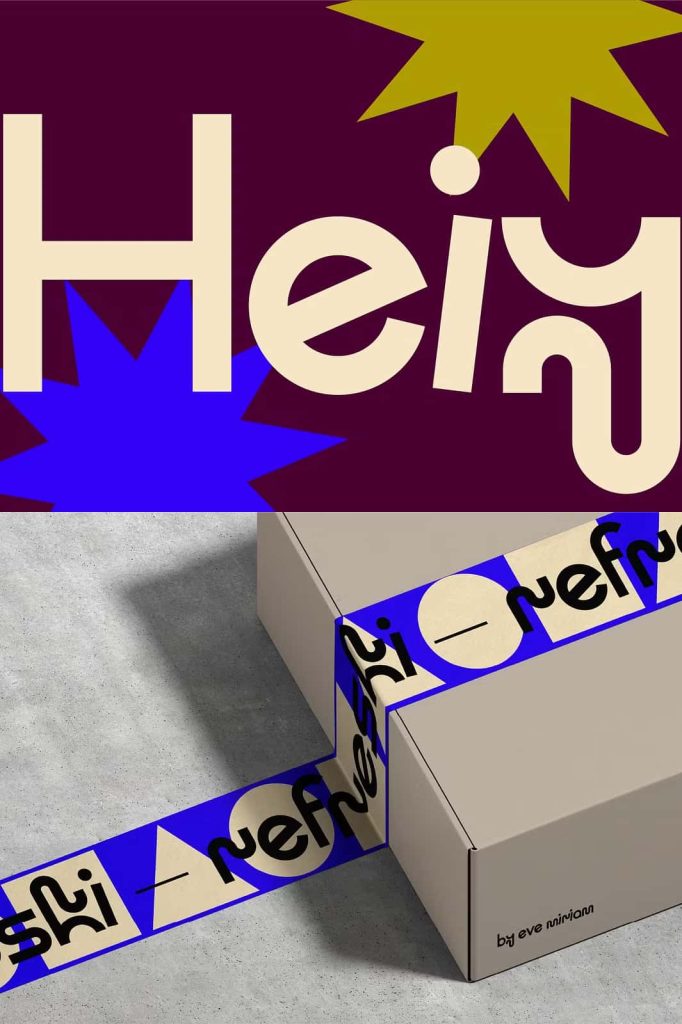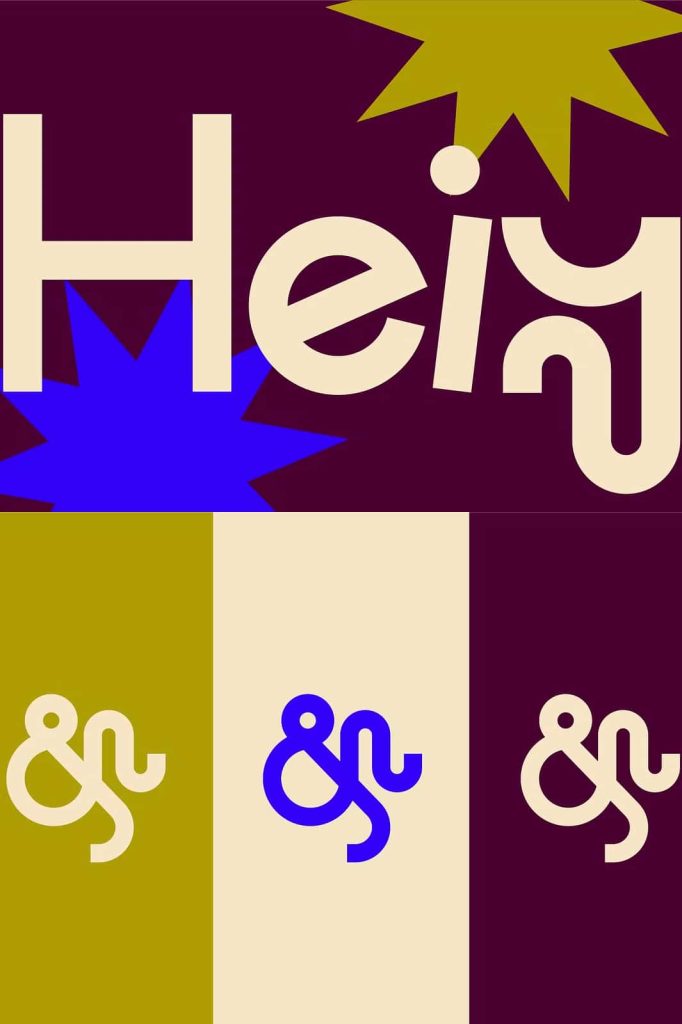
Heiy Fun and Characterful Display Typeface
Heiy introduces a lively and expressive display typeface that brings bold personality and creative energy into every design. This font captures attention instantly with its playful forms and distinctive character, making it an ideal choice for projects that aim to stand out. Designed with creativity in mind, Heiy transforms simple text into a strong visual statement that communicates confidence, fun, and originality.
The typeface embraces a unique design approach that prioritizes individuality. Each letter carries its own personality while still maintaining harmony across the entire set. This balance allows designers to create compositions that feel dynamic, engaging, and visually exciting without losing clarity or readability.
Bold Personality That Stands Out
Heiy delivers a strong visual presence that immediately captures attention. Its bold shapes and expressive style make it perfect for headlines, titles, and any text that needs to make an impact. The font actively enhances visual hierarchy by drawing the viewer’s eye to key messages.
Designers can use Heiy to create designs that feel energetic and full of life. Its characterful forms break away from conventional typography, offering a fresh and modern alternative for creative projects. This makes it especially valuable for designs that aim to communicate excitement and originality.
Designed for Maximum Visual Impact
Heiy allows designers to push creative boundaries by offering a typeface that feels both playful and confident. Its strong presence ensures that text never fades into the background, making it a powerful tool for capturing attention in both print and digital environments.
Perfect for Creative Branding
Heiy empowers brands to express their identity in a bold and memorable way. Its playful and distinctive style helps businesses stand out in competitive markets, especially those that want to communicate a fun and approachable personality. The font works well for logos, brand marks, and promotional materials that require a strong visual identity.
Designers can actively use Heiy to build branding systems that feel cohesive and engaging. Its unique character ensures that every element of the design contributes to a recognizable and impactful brand presence.
Create Memorable Brand Experiences
With Heiy, branding becomes more than just visual identity—it becomes an experience. The font encourages creative exploration, allowing designers to craft visuals that resonate with audiences and leave lasting impressions.
Ideal for Posters and Display Design
Heiy shines in large-scale applications such as posters, banners, and signage. Its bold and expressive forms ensure readability even from a distance, making it highly effective for display purposes. The font adds energy and excitement to layouts, helping designs stand out in busy environments.
Designers can use Heiy to create compositions that feel vibrant and engaging. Its playful nature allows for creative experimentation, enabling unique layouts that capture attention and communicate messages effectively.
Enhance Digital and Social Media Content
Heiy performs exceptionally well in digital design, particularly for social media content where visual impact is essential. Its bold and fun style helps posts stand out in fast-scrolling feeds, making it easier to capture audience attention.
By incorporating Heiy into social media graphics, designers can create content that feels fresh, modern, and engaging. The font supports a wide range of creative styles, from bold promotional visuals to playful and expressive posts.
Versatile Across Creative Applications
Heiy adapts to a variety of creative uses beyond branding and posters. It works well for packaging, merchandise, event materials, and editorial highlights. Its flexibility allows designers to explore different visual directions while maintaining a consistent tone of energy and creativity.
Bring Energy and Creativity to Every Design
Heiy empowers designers to create work that feels bold, expressive, and full of personality. Its characterful design transforms typography into a central visual element that enhances the overall composition. By combining playful forms with strong structure, Heiy delivers a typeface that is both functional and visually exciting.
Choose Heiy to inject energy, creativity, and individuality into your projects. Its fun and characterful style ensures that your designs stand out, connect with audiences, and leave a memorable impression in any creative context.